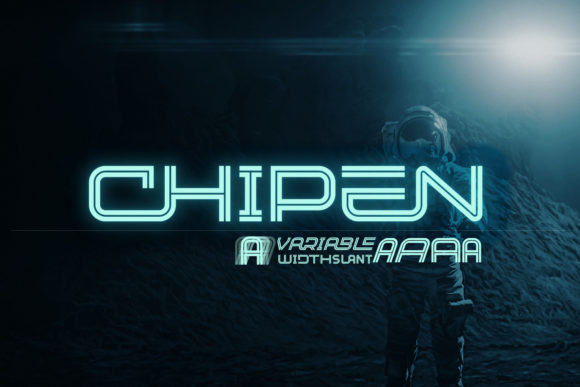
Introducing Chipen Font: The Ultimate Techno-Styled Display Font
In the world of typography, fonts play a crucial role in conveying messages, expressing emotions, and creating visual identities. With the ever-evolving digital landscape, designers and developers are constantly on the lookout for modern, versatile, and attention-grabbing fonts that can elevate their projects. This is where Chipen Font comes into play – a bold, techno-styled display font that is poised to become a major asset in your design library.
What is Chipen Font?
Chipen Font is a contemporary, techno-inspired display font designed to make a statement. Its bold and futuristic aesthetic makes it perfect for projects that require a modern and edgy feel. Whether you’re working on a branding campaign, a website, or a marketing material, Chipen Font is sure to grab attention and leave a lasting impression.
Key Features of Chipen Font
- Bold and Versatile: Chipen Font boasts a bold and versatile design, making it suitable for a wide range of applications, from headlines and titles to logos and slogans.
- Techno-Styled: The font’s techno-styled aesthetic gives it a modern and futuristic feel, perfect for projects that require a cutting-edge look.
- Modern and Edgy: Chipen Font’s unique design elements make it stand out from other fonts, adding an edgy touch to your designs.
- Highly Legible: Despite its bold design, Chipen Font remains highly legible, ensuring that your message is conveyed clearly and effectively.
What Makes Chipen Font So Special?
So, what sets Chipen Font apart from other fonts in the market? Here are a few reasons why Chipen Font is a cut above the rest:
- Unique Design: Chipen Font’s design is a perfect blend of modern and techno elements, making it a unique addition to your font library.
- Flexibility: The font’s versatility makes it suitable for a wide range of applications, from digital projects to print materials.
- Attention-Grabbing: Chipen Font is designed to grab attention and make a statement, making it perfect for projects that require a bold and eye-catching look.
How to Use Chipen Font in Your Designs
Now that we’ve explored the features and benefits of Chipen Font, let’s dive into some practical examples of how to use it in your designs:
- Headlines and Titles: Use Chipen Font to create bold and attention-grabbing headlines and titles that make a statement.
- Logos and Branding: Chipen Font’s unique design makes it perfect for logos and branding projects that require a modern and edgy feel.
- Marketing Materials: Use Chipen Font to create eye-catching marketing materials, such as brochures, flyers, and posters.
- Web Design: Chipen Font is also suitable for web design projects, adding a modern and techno-styled touch to your website.
Tips and Tricks for Getting the Most Out of Chipen Font
To get the most out of Chipen Font, here are some tips and tricks to keep in mind:
- Experiment with Different Sizes: Chipen Font looks great in various sizes, so don’t be afraid to experiment and find the perfect size for your project.
- Play with Colors: The font’s bold design makes it perfect for use with bright and bold colors, so don’t be afraid to get creative.
- Mix and Match: Chipen Font can be paired with a variety of other fonts, so feel free to experiment and find the perfect combination for your project.
In conclusion, Chipen Font is a bold, techno-styled display font that is sure to become a major asset in your design library. Its unique design, versatility, and attention-grabbing aesthetic make it perfect for a wide range of applications, from headlines and titles to logos and branding projects. With its highly legible design and flexibility, Chipen Font is a font that can be used in various contexts, from digital projects to print materials.
- What is Chipen Font? Chipen Font is a bold, techno-styled display font designed for modern and edgy designs.